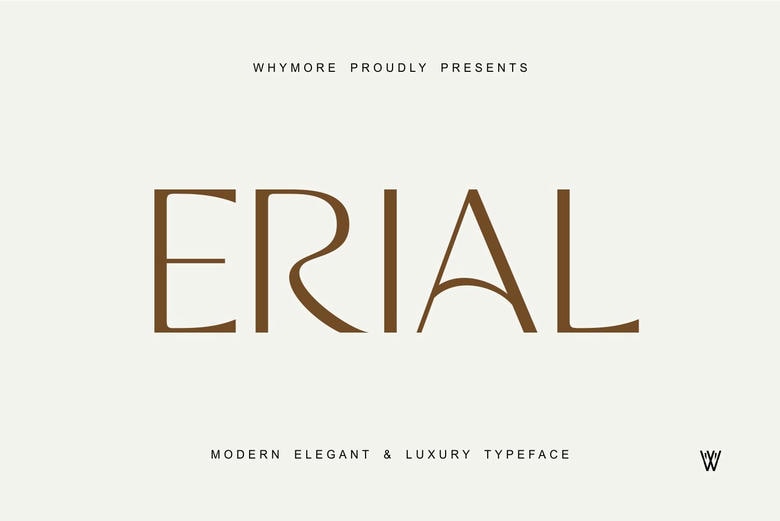
Erial Font
Erial is a modern serif font that brings a refined elegance to any project. Designed with versatility in mind, ERIAL is ideal for invitations, branding, and crafting, seamlessly blending classic charm with a contemporary edge. Perfect for wedding designs, event materials, Cricut projects, and beyond.
Erial Sans Serif Font